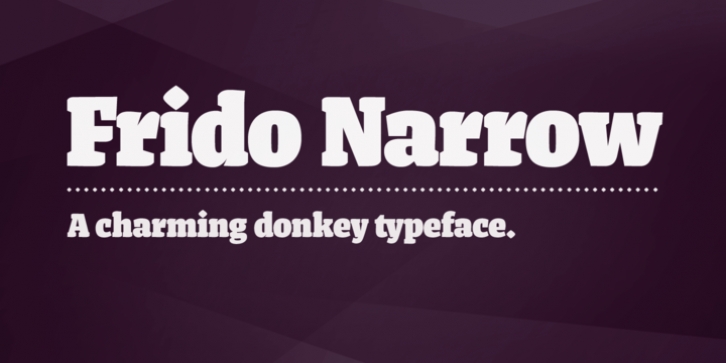
Frido Narrow downloadDesigner: Gunnar Link
Publisher: Gunnar Link
Frido Narrow is a strong serif typeface to give your messages a friendly and warm visual appearance. Enjoy!